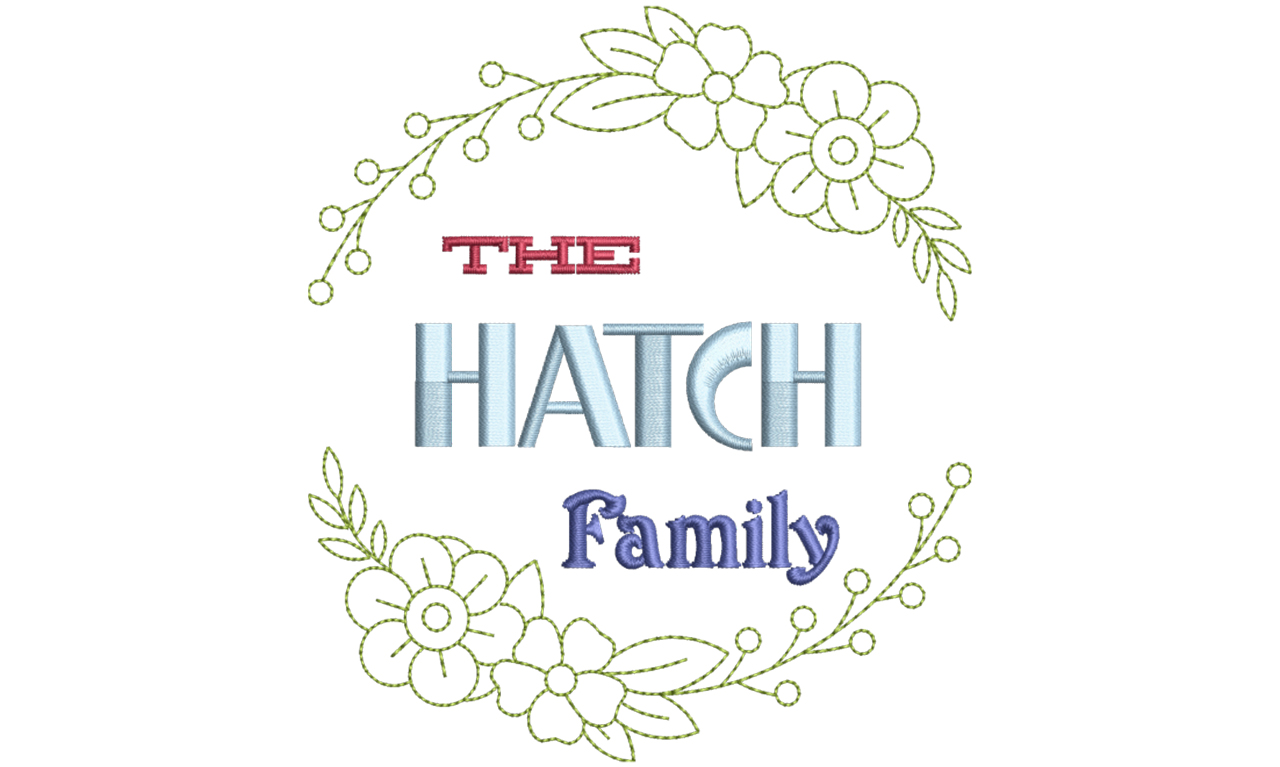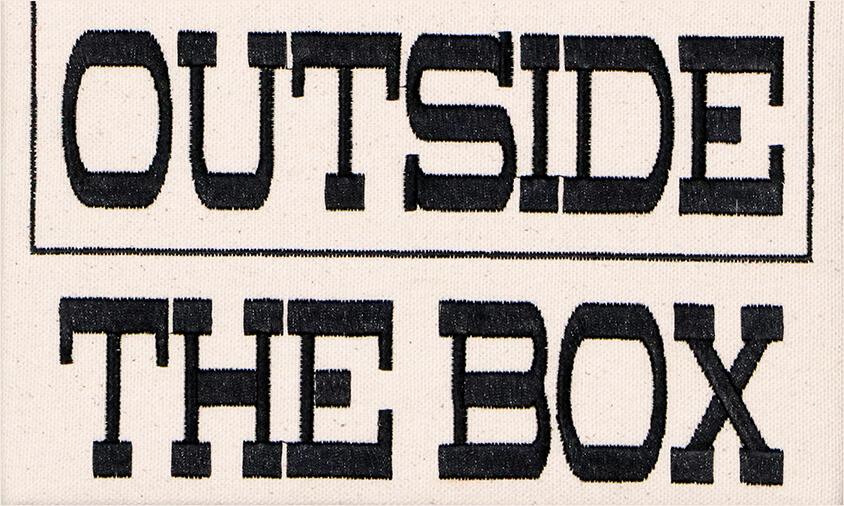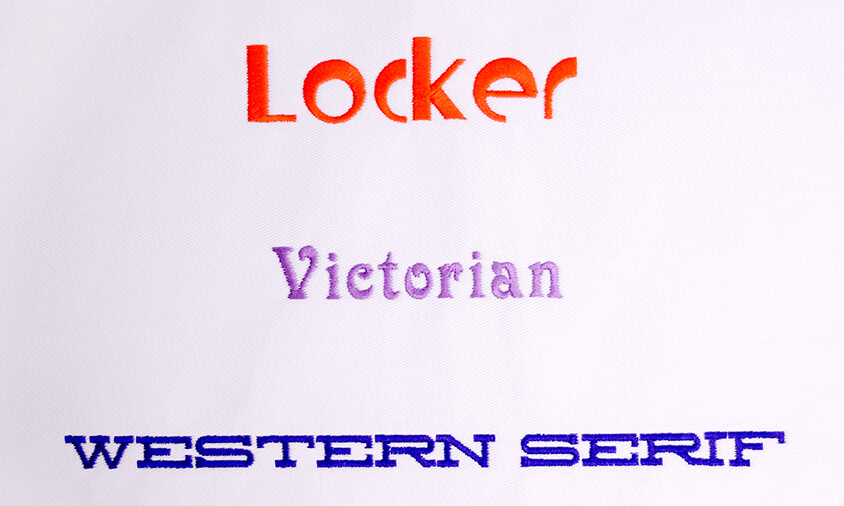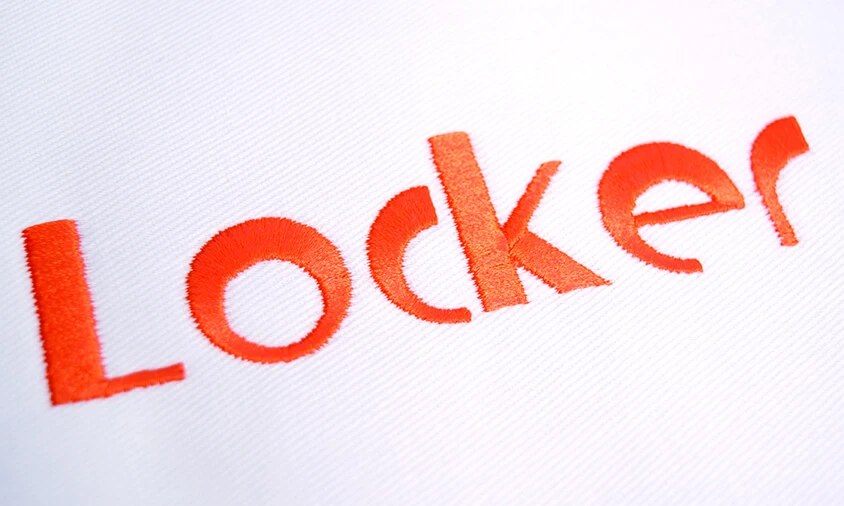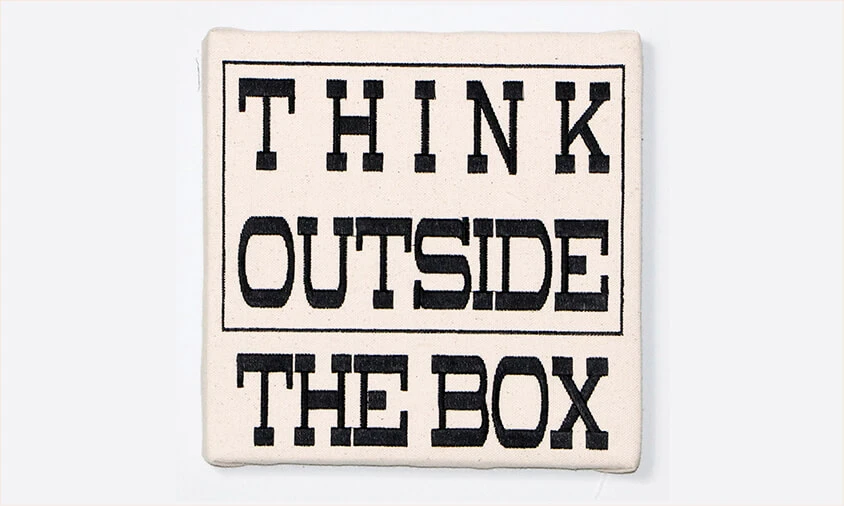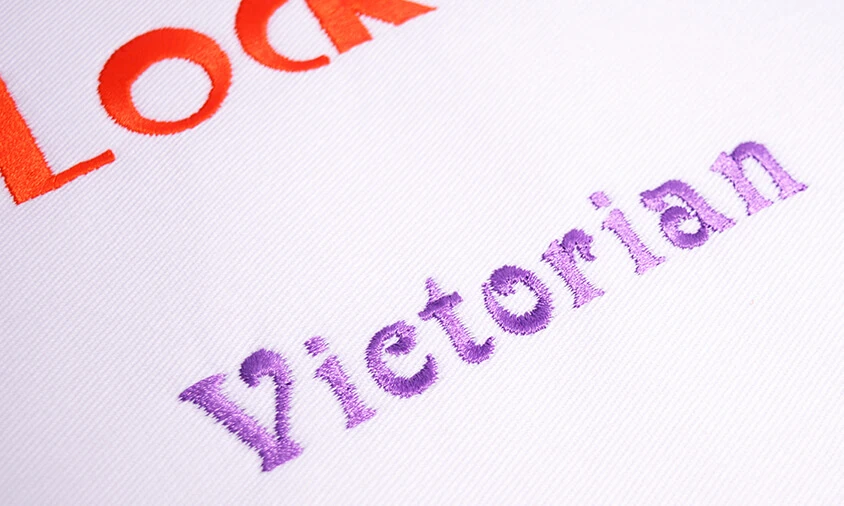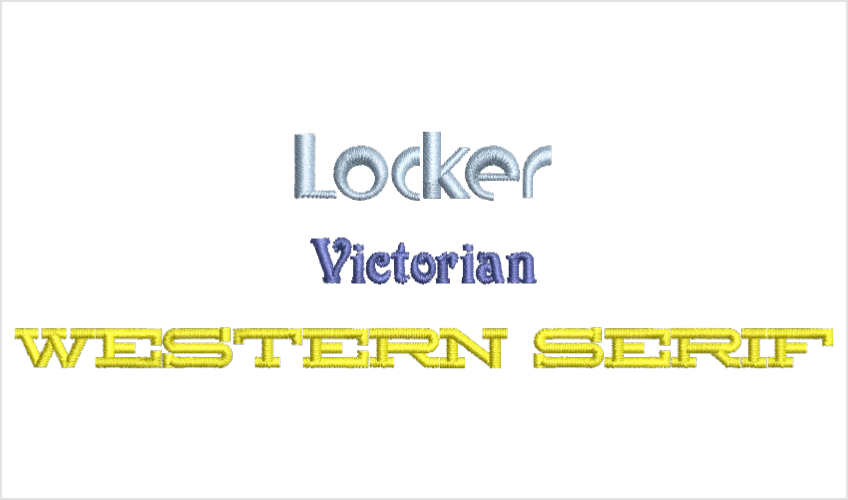
People are often looking for a font that adds something a little different. This collection is just perfect and adds another level of creativity to your home décor projects.
These fonts offer a wide variety of options that really ties into the style of today’s modern homes.